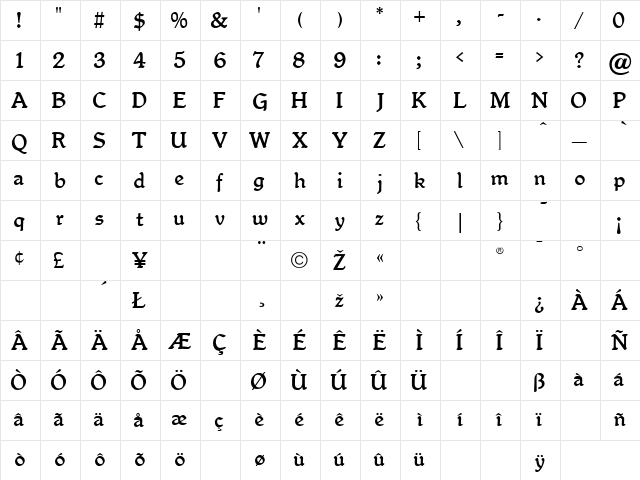
Motto Normal
Design Context for Motto Typeface
Motto is a composed and adaptable typeface that performs quietly and consistently across a wide range of design contexts.
Pro Tip: Use Motto in both headline and body roles to test its range before committing to a single application.